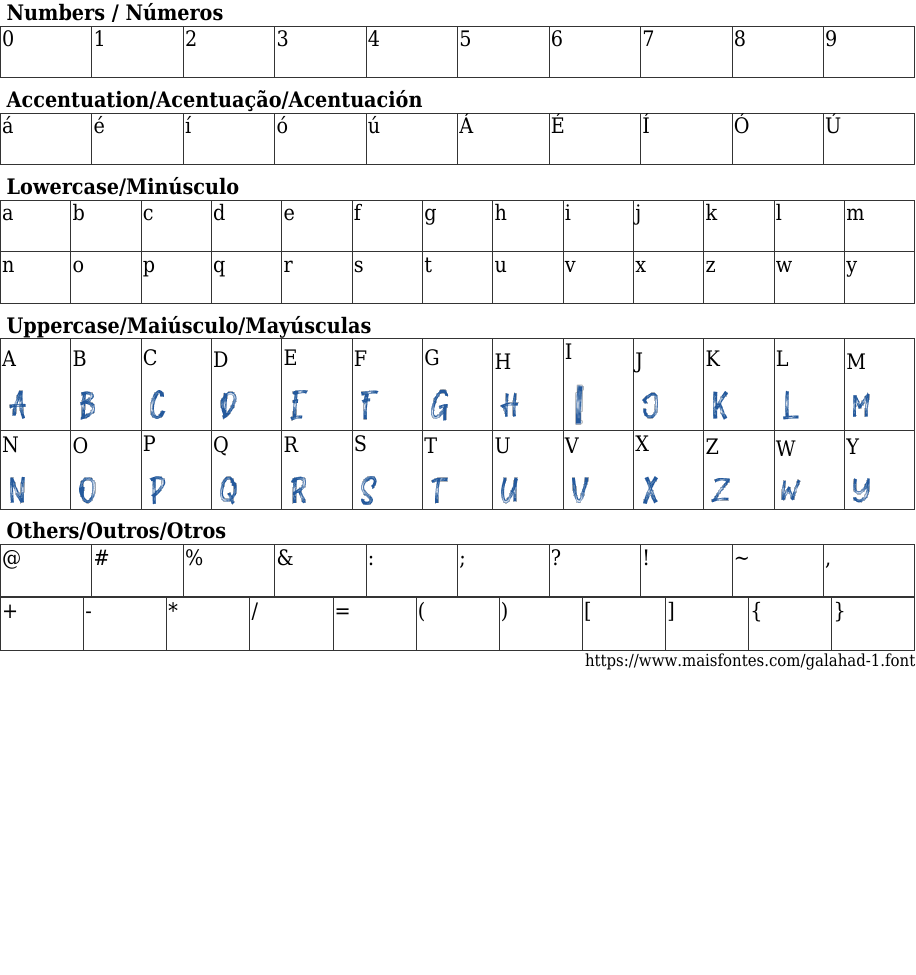
A great choice for highlighting your design elements. Web galahad by ramli setiadi. A decorative typeface with 1 style, available from adobe fonts for sync. Web galahad by eifetstype.
Galahad Font Free Download - Web download galahad regulartruetype font. Download 186,286 free fonts at ufonts.com Web galahad by eifetstype. Web galahad by ramli setiadi. This font is partial and free.
Galahad Font Free Download - Web galahad std font free download. A great choice for highlighting your design elements. 4,373 downloads (1 yesterday) free for personal use. Web explore galahad designed by alan blackman at adobe fonts. Web download galahad regulartruetype font.
Galahad Font Free Download - A great choice for highlighting your design elements. Web download galahad std regular for free. Web galahad std font free download. Web galahad by ramli setiadi. Web galahad by eifetstype.